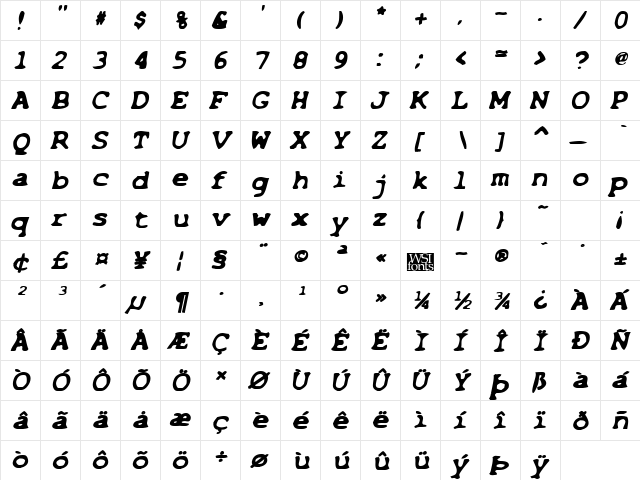
BleachedHeavy Italic
Design Context for BleachedHeavy Typeface
BleachedHeavy is a composed and adaptable typeface that performs quietly and consistently across a wide range of design contexts. Its italic angle brings a sense of urgency and motion to the letterforms.
Pro Tip: Use BleachedHeavy for emphasis, pull quotes, and subheadings where its slanted energy can add rhythm to the layout.